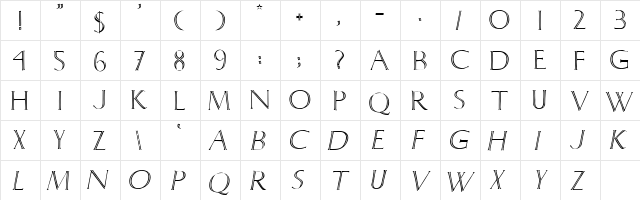
Carissimi Regular
| Foundry | David F. Nalle - Scriptorium Fonts |
Design Context for Carissimi Typeface
Carissimi offers clean, dependable letterforms without strong stylistic allegiance, making it a practical choice for designers who need flexibility.